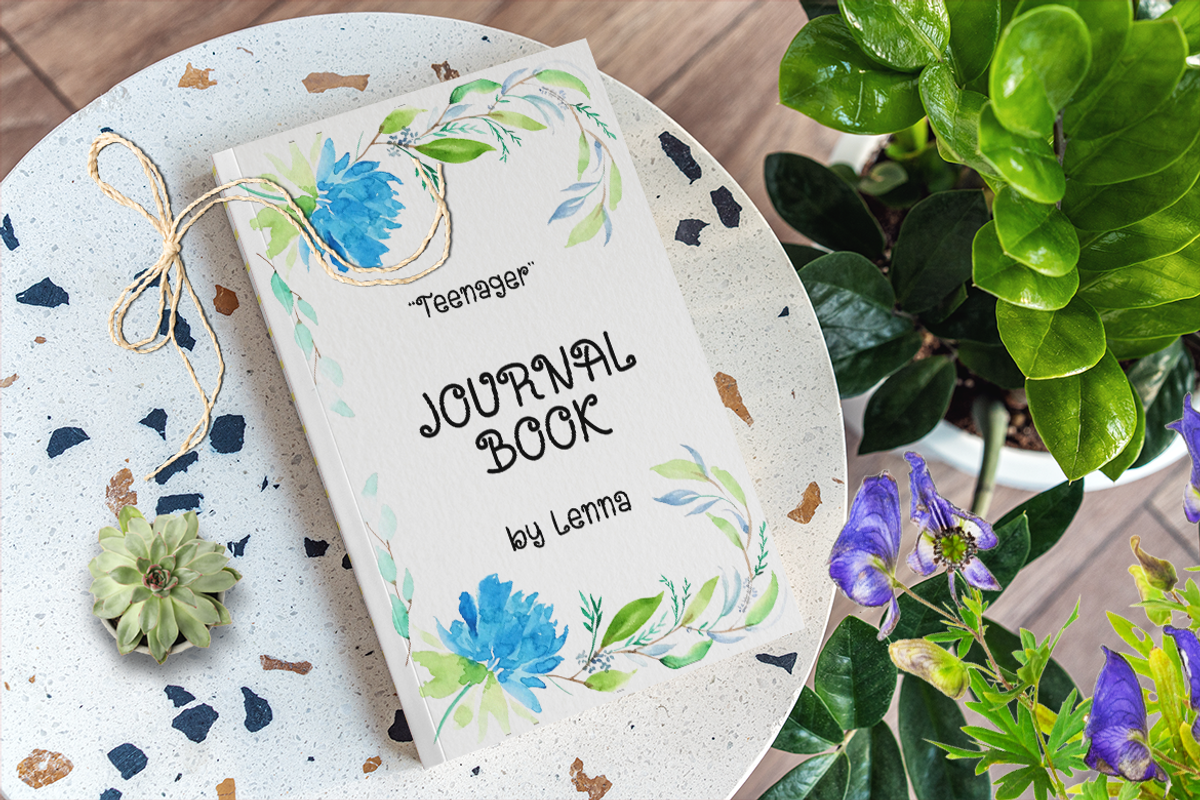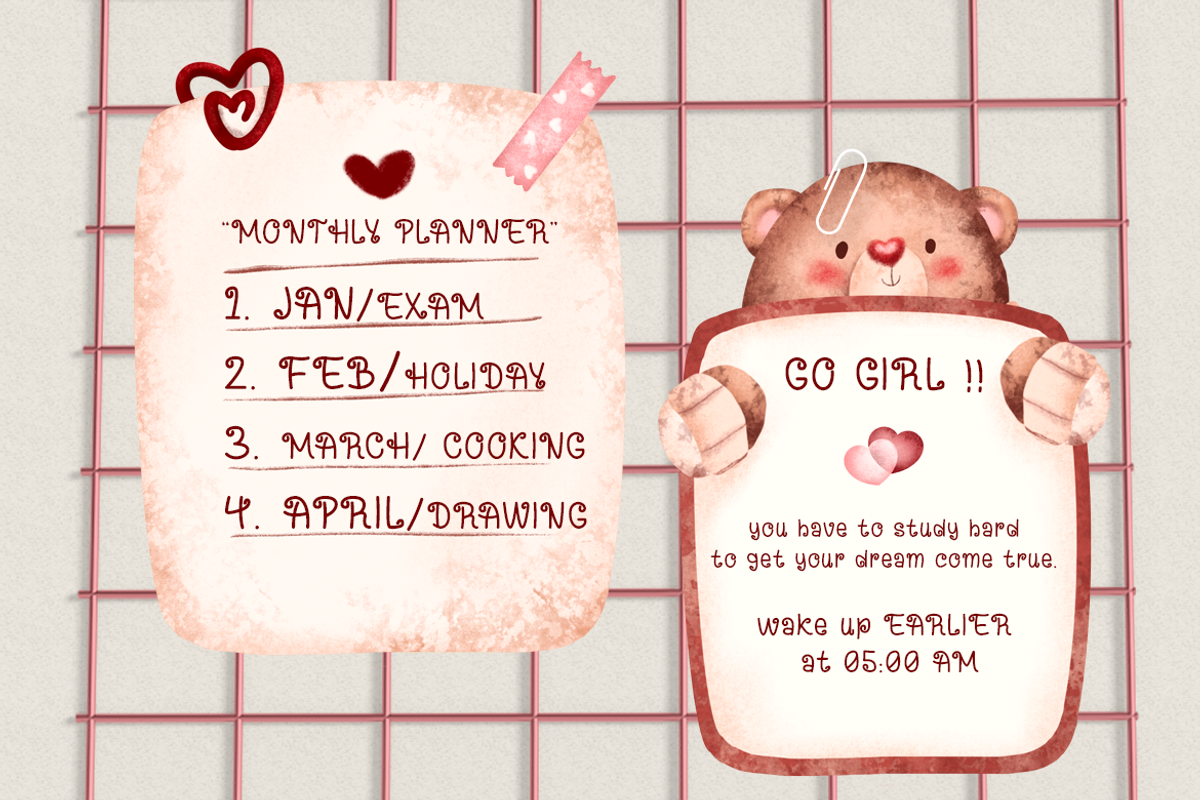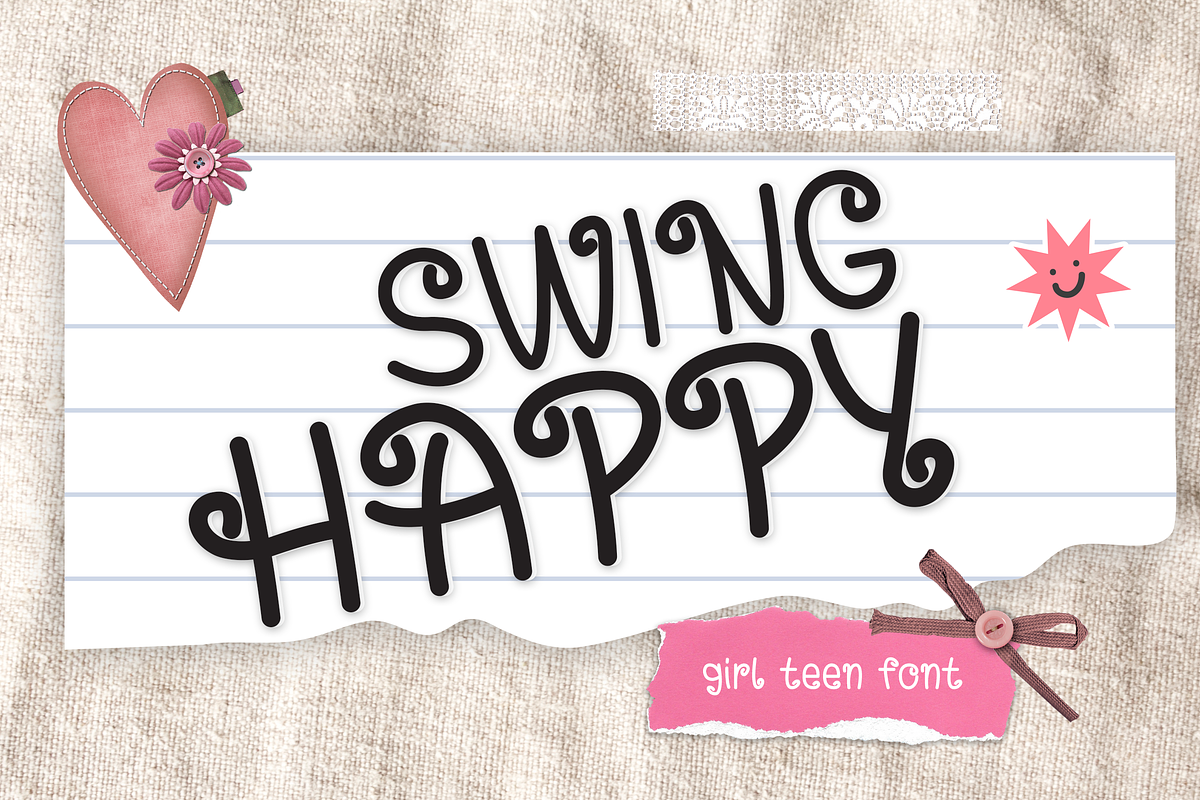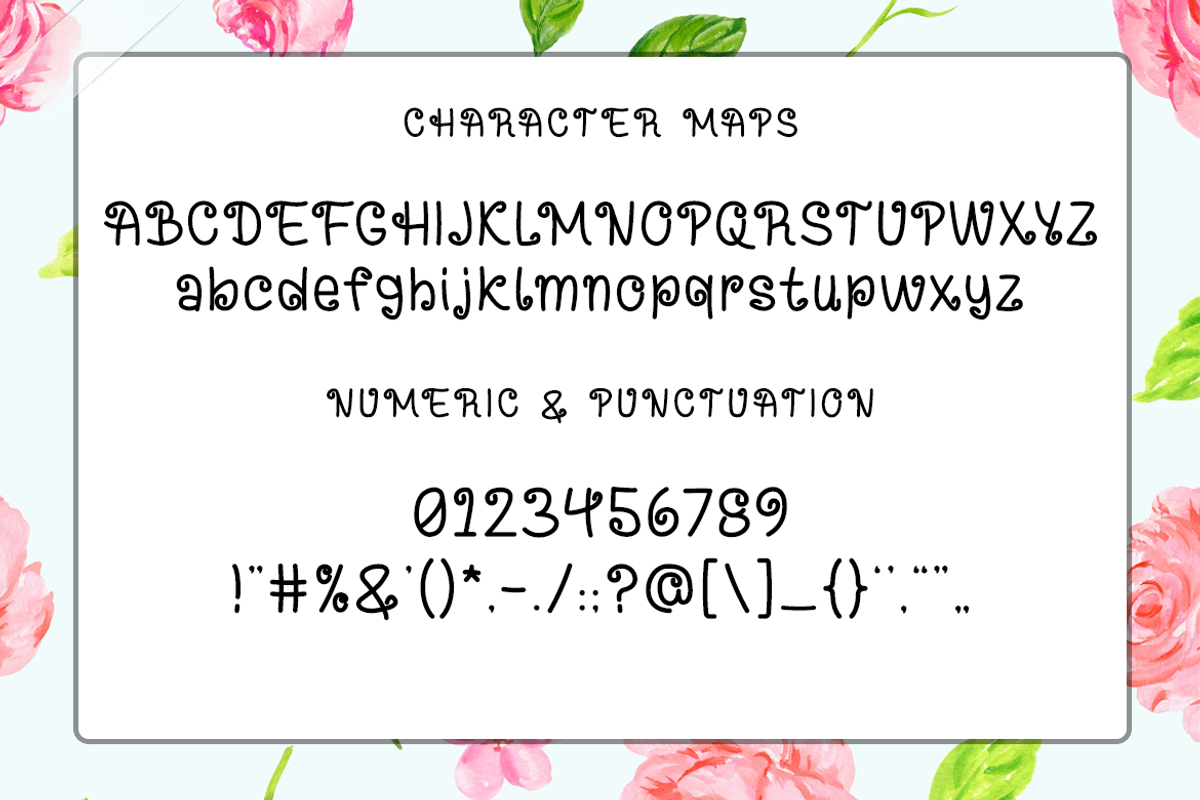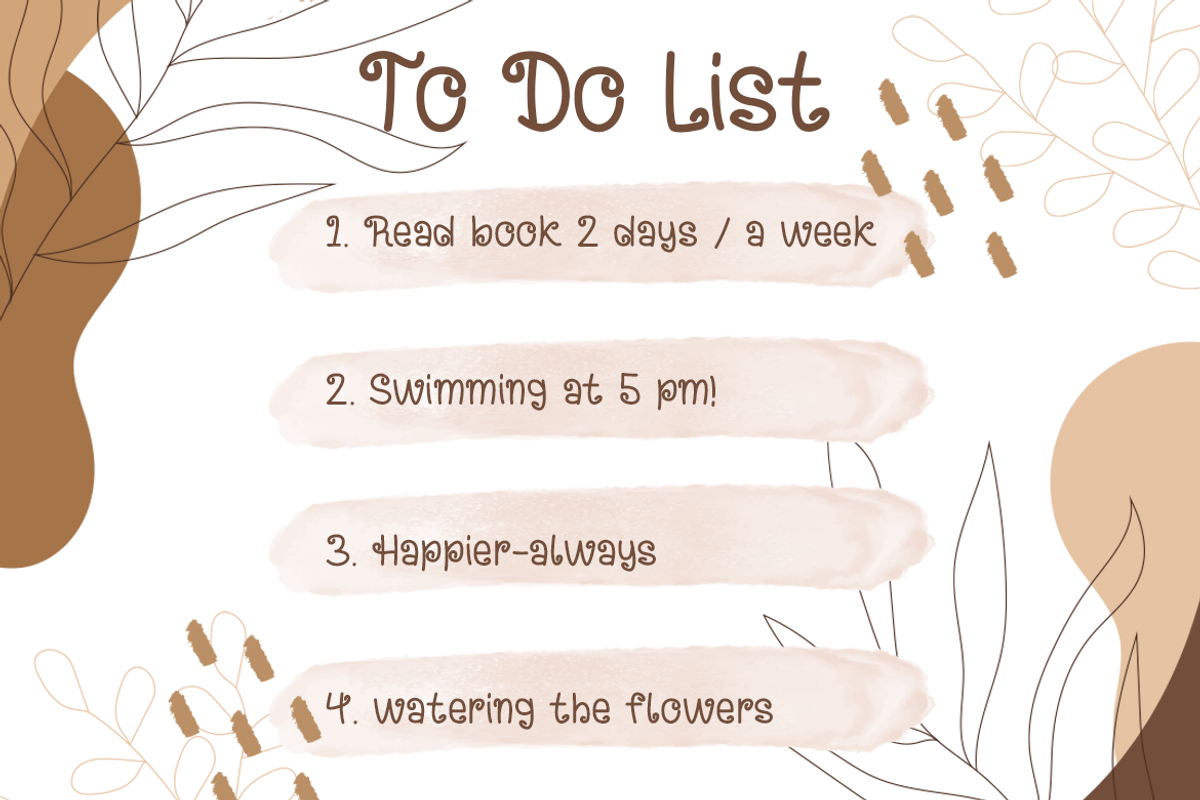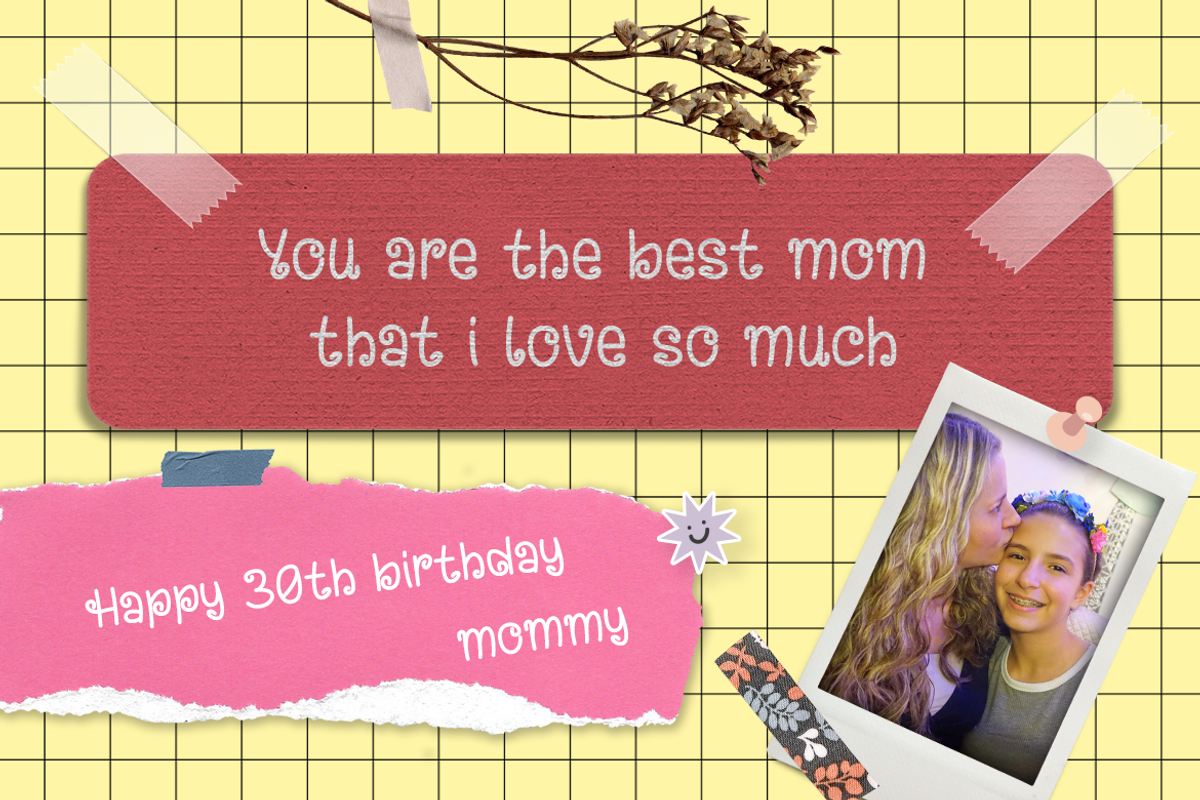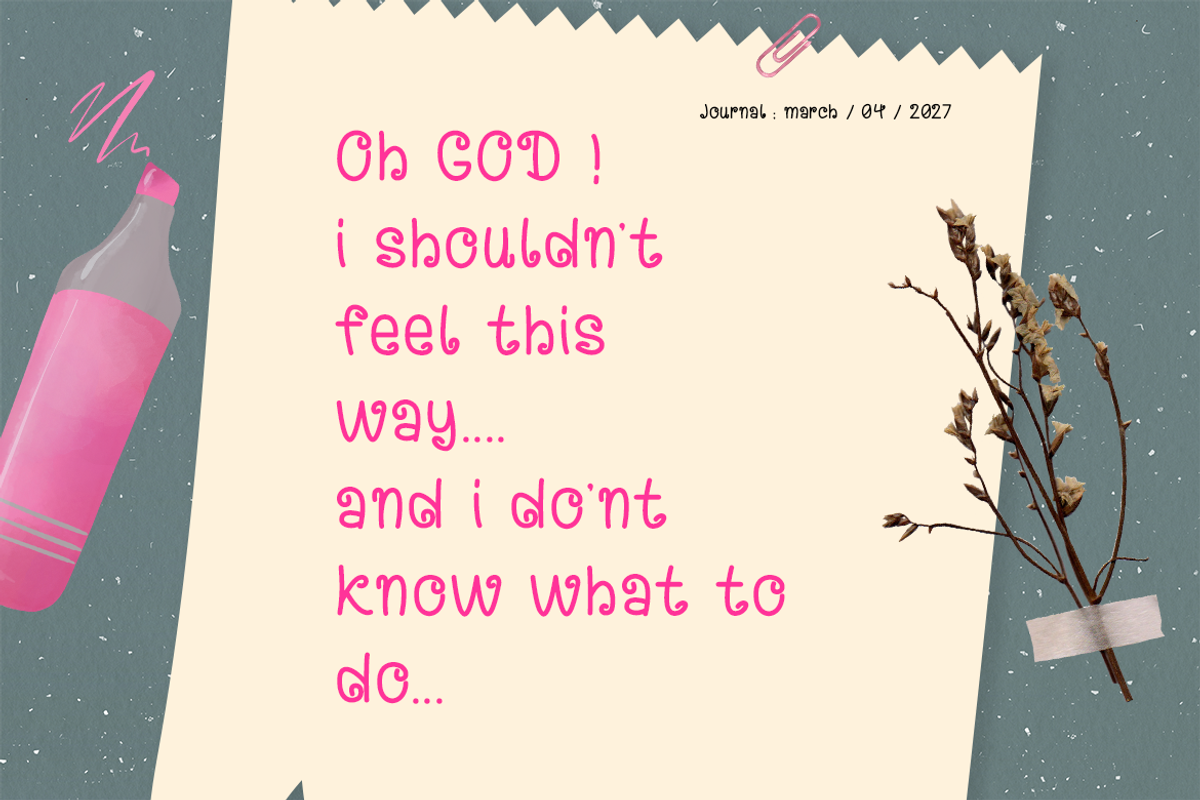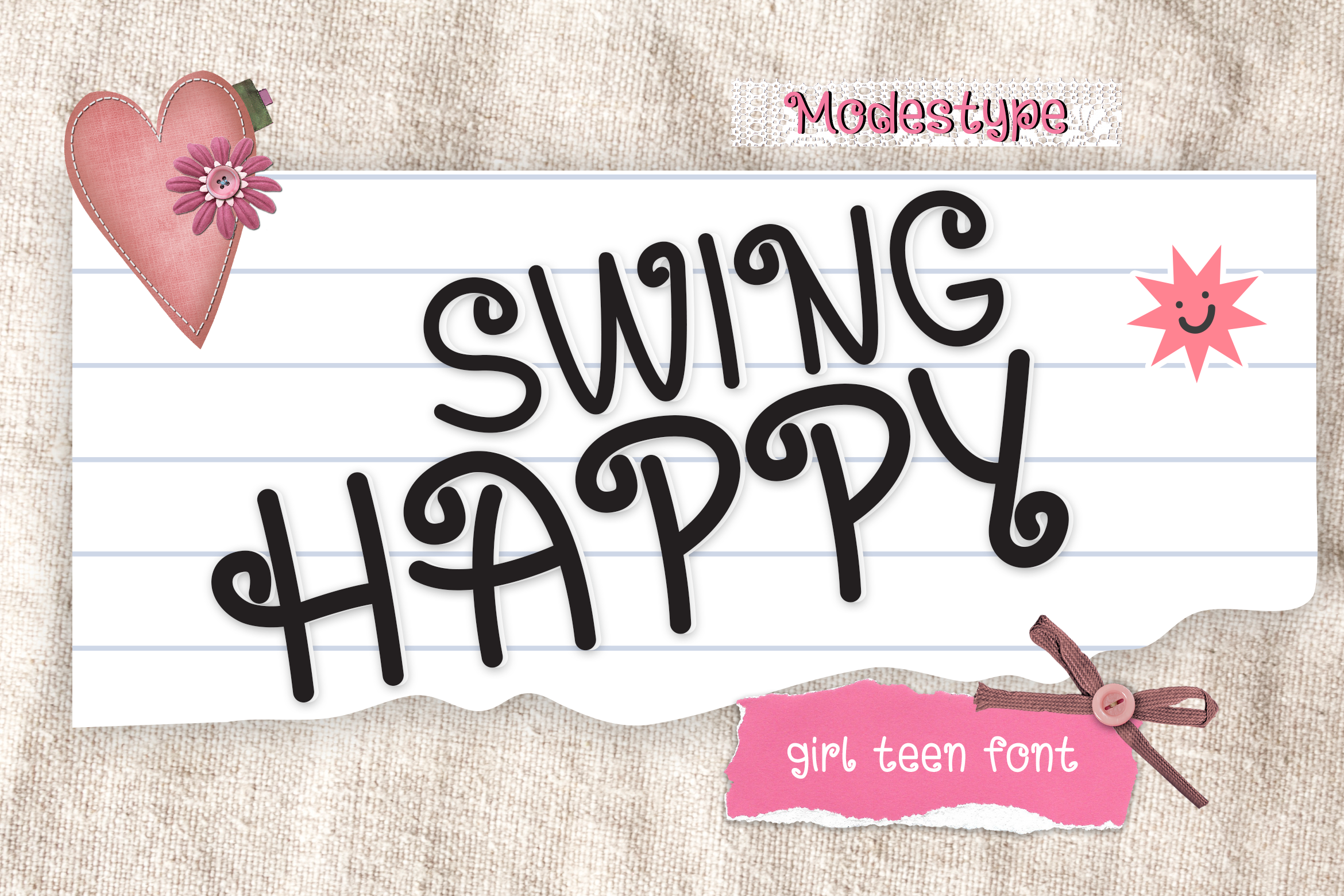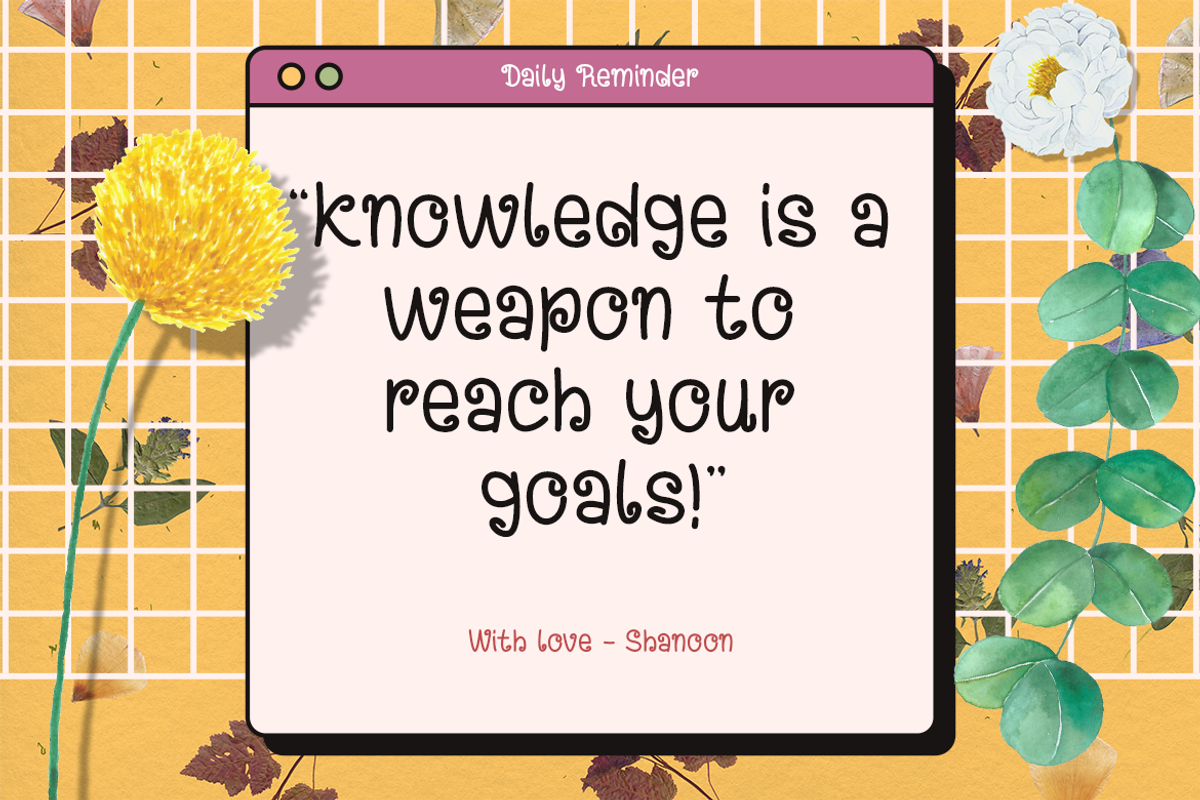
Swing Happy - Girl Teen Font
Swing Happy – Girl Teen Font
Girls are meant to be cute, and Swing Happy is a perfect font to describe their feeling.
Suit perfect for girl books market, diary and wall art fonts, event posters, school supplies font, posters, movie titles, youtube covers, youtube thumbnails, social media page covers, and so on...
- Basic latin A-Z and a-z, Numbers, Punctuation